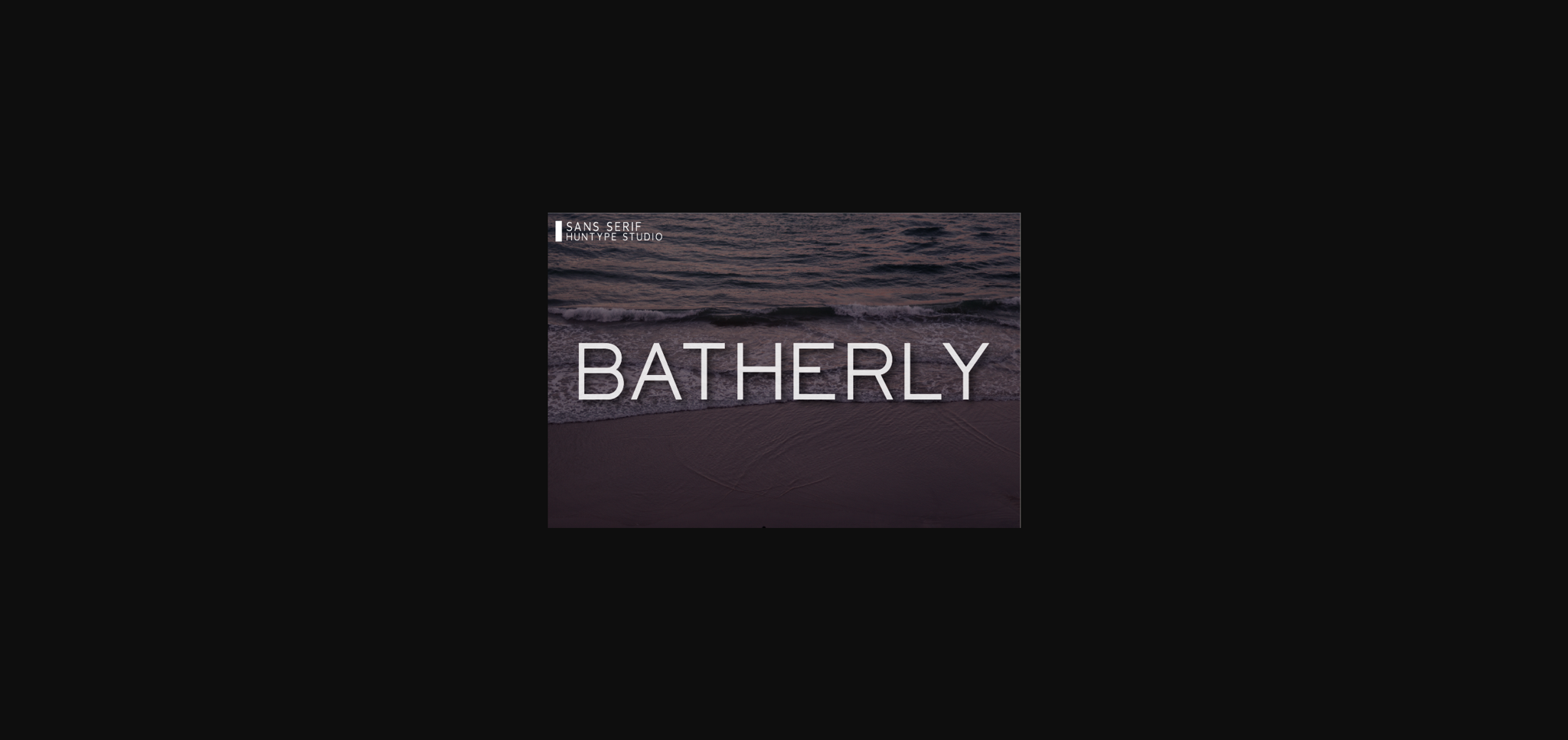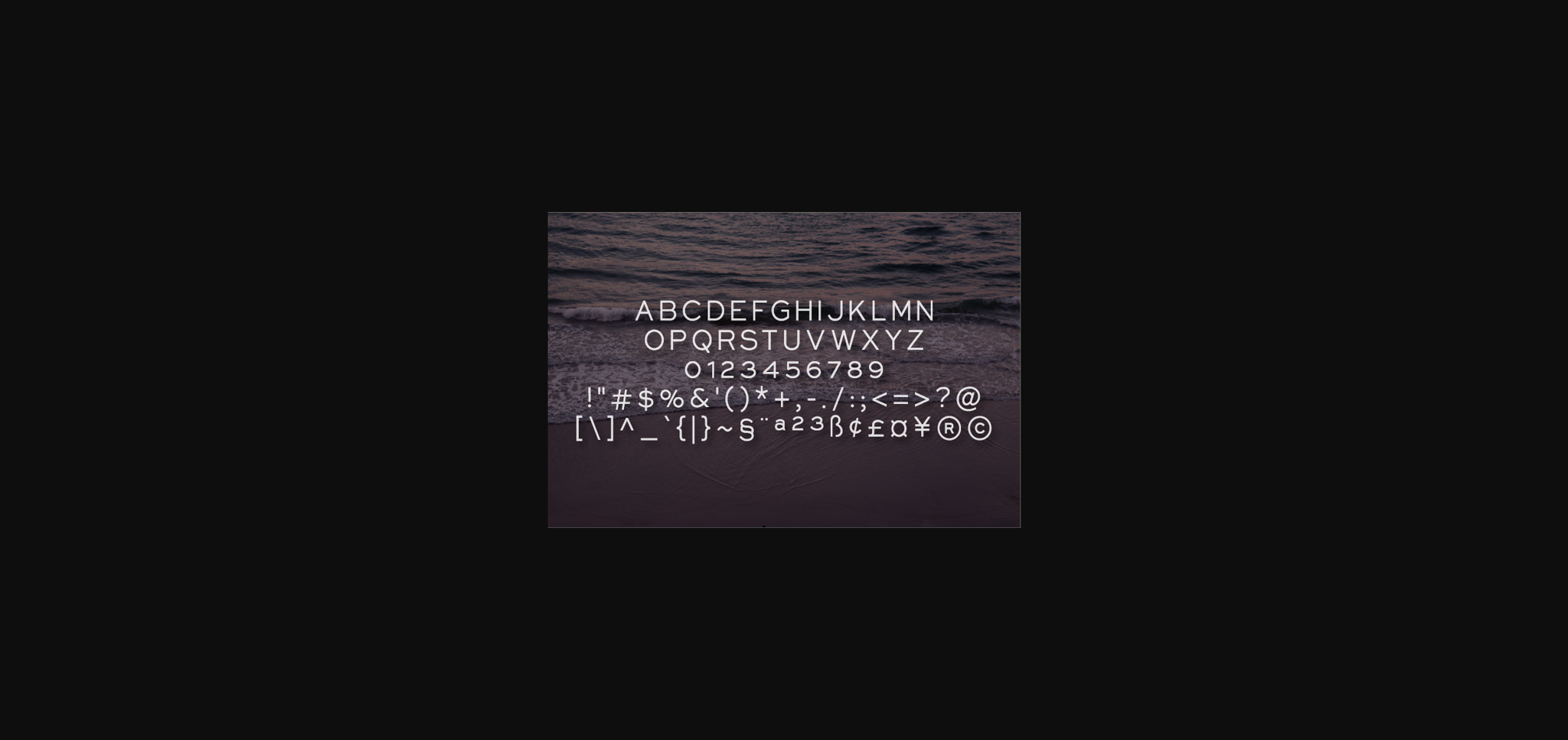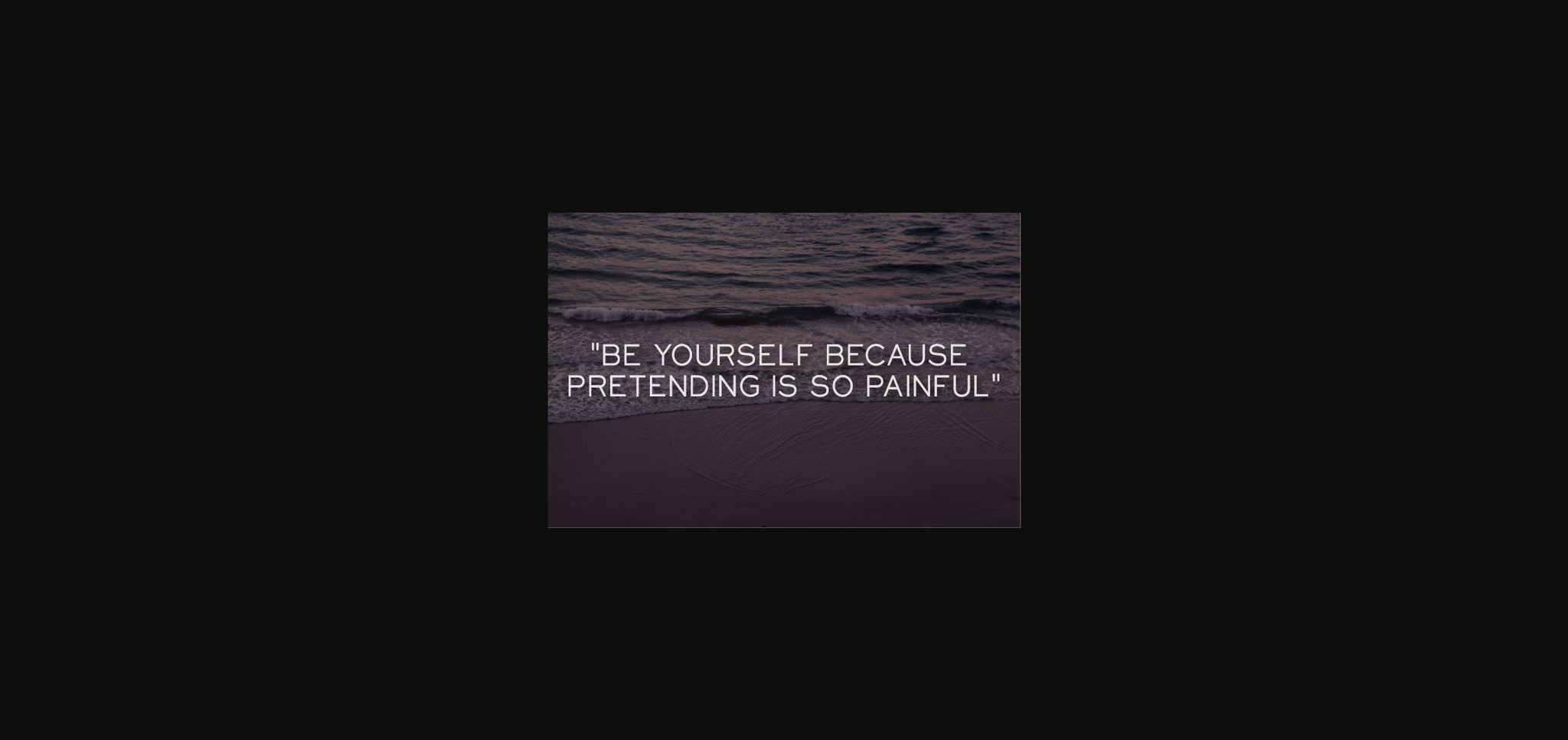
Batherly is a thin and clean sans serif font. It works perfectly in both formal and informal designs, so add it confidently and you won’t be disappointed.